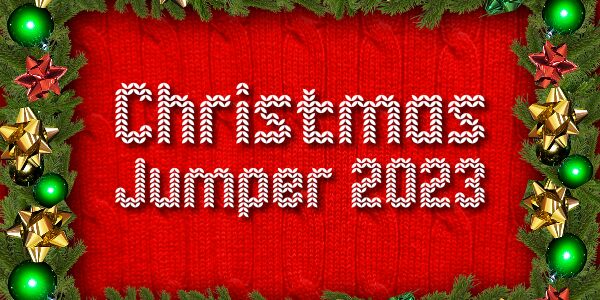
Christmas Jumper 2023 Regular
Step into the festive spirit with Christmas Jumper 2023, a bold and cozy font designed by Chequered Ink to capture the essence of holiday warmth.
With its charming knitted style, this typeface wraps your words like a snug winter sweater, making it perfect for seasonal marketing, greeting cards, and themed event invitations. Its handcrafted character adds a personal touch to any creative project while remaining legible and impactful.
The Christmas Jumper 2023 font is an ideal choice for designers seeking to infuse their work with the nostalgic joy of the yuletide season in an innovative and visually delightful way.